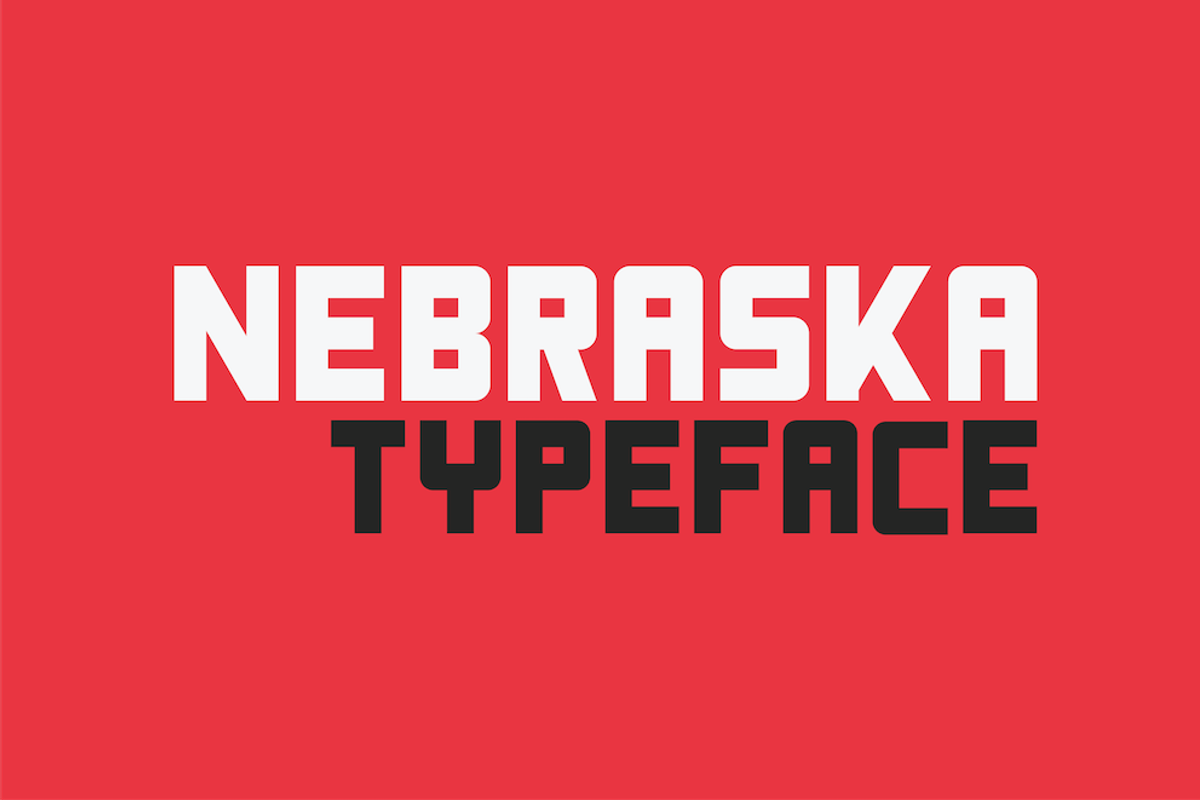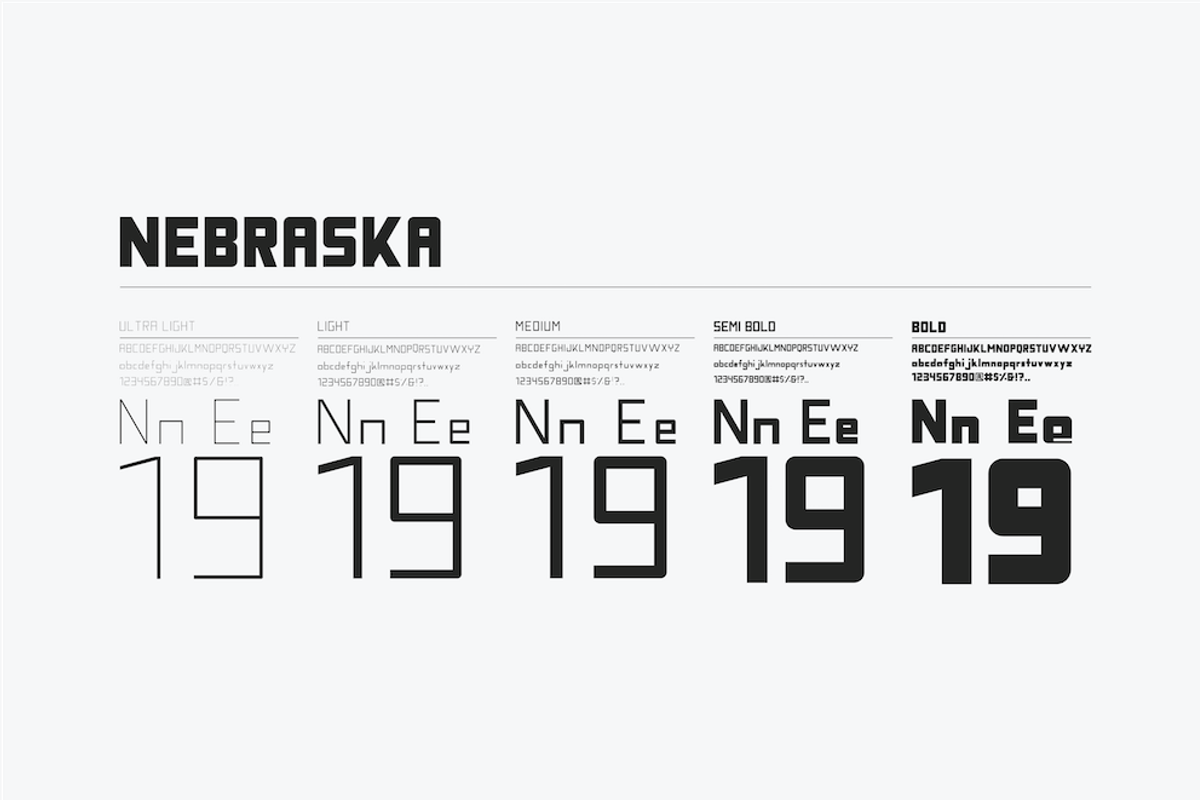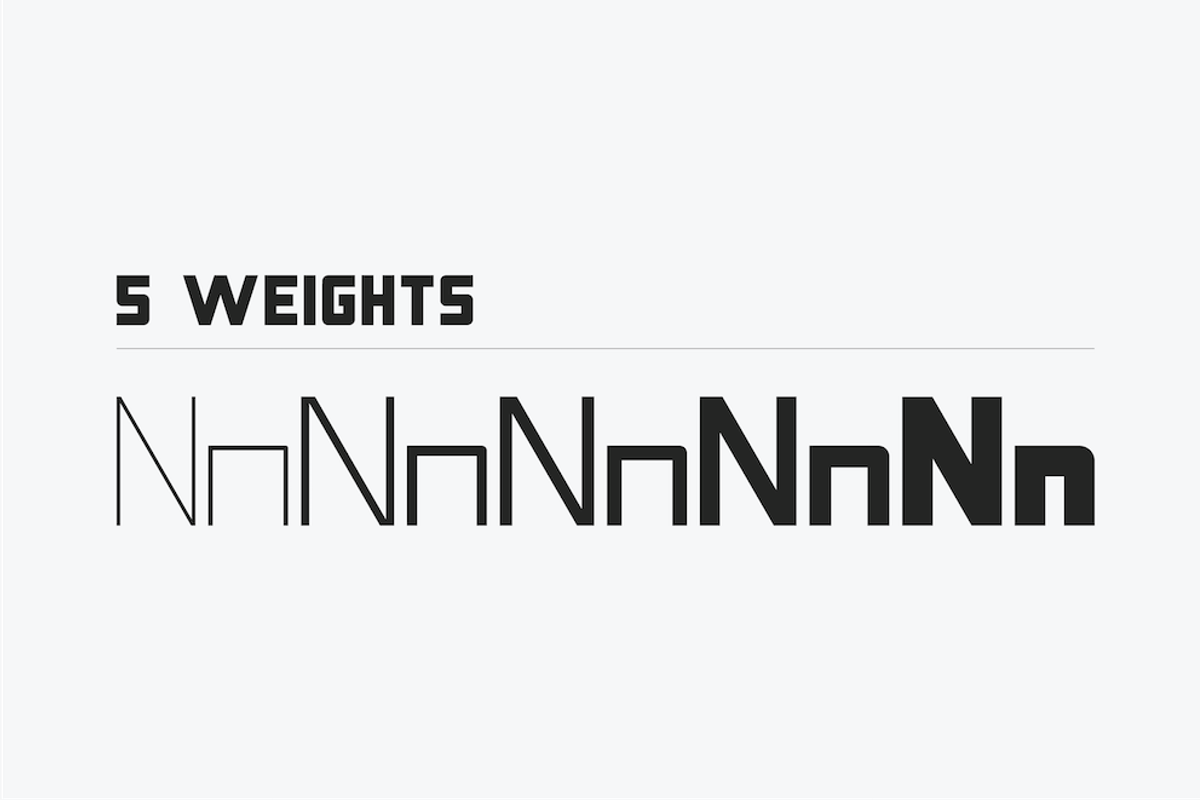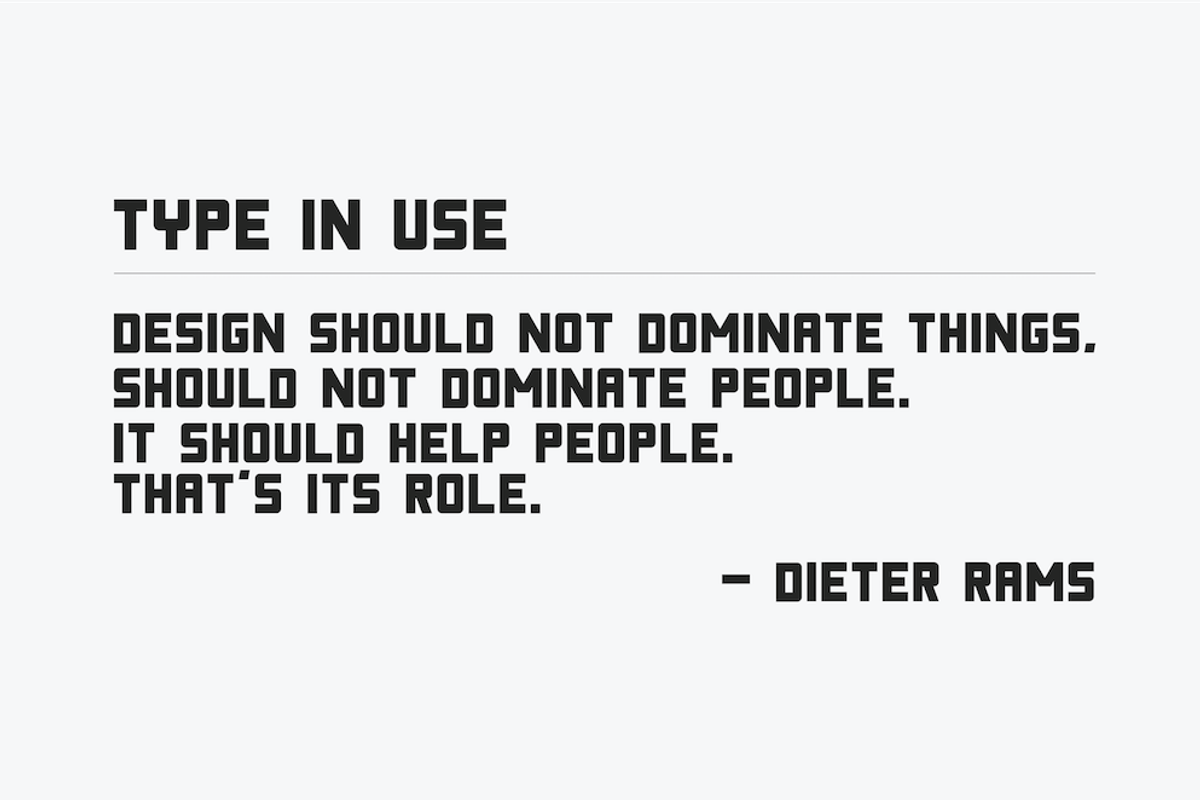
NEBRASKA TYPEFACE
Nebraska is a typeface inspired by Aaron Draplin’s DDC Hardware and the State of Nebraska. What started out as a from scratch alteration of DDC Hardware’s middle bar and adding lowercase glyphs ended up becoming an entire family. Nebraska has five weights, upper and lowercase letters, numbers, and all standard symbols.
- What started out as a from scratch alteration of DDC Hardware’s middle bar and adding lowercase glyphs ended up becoming an entire family.
- Nebraska has five weights, upper and lowercase letters, numbers, and all standard symbols.
- Nebraska Ultra Light
- Nebraska Light
- Nebraska Medium
- Nebraska Semibold
- Nebraska Bold